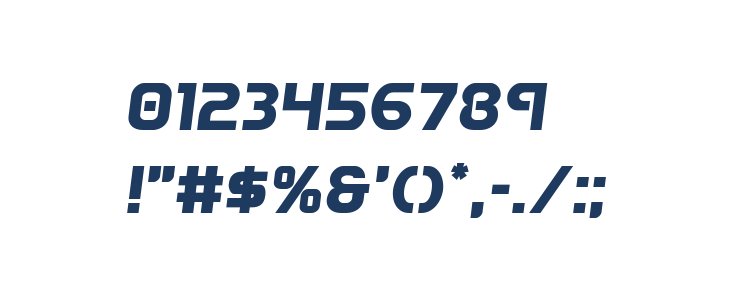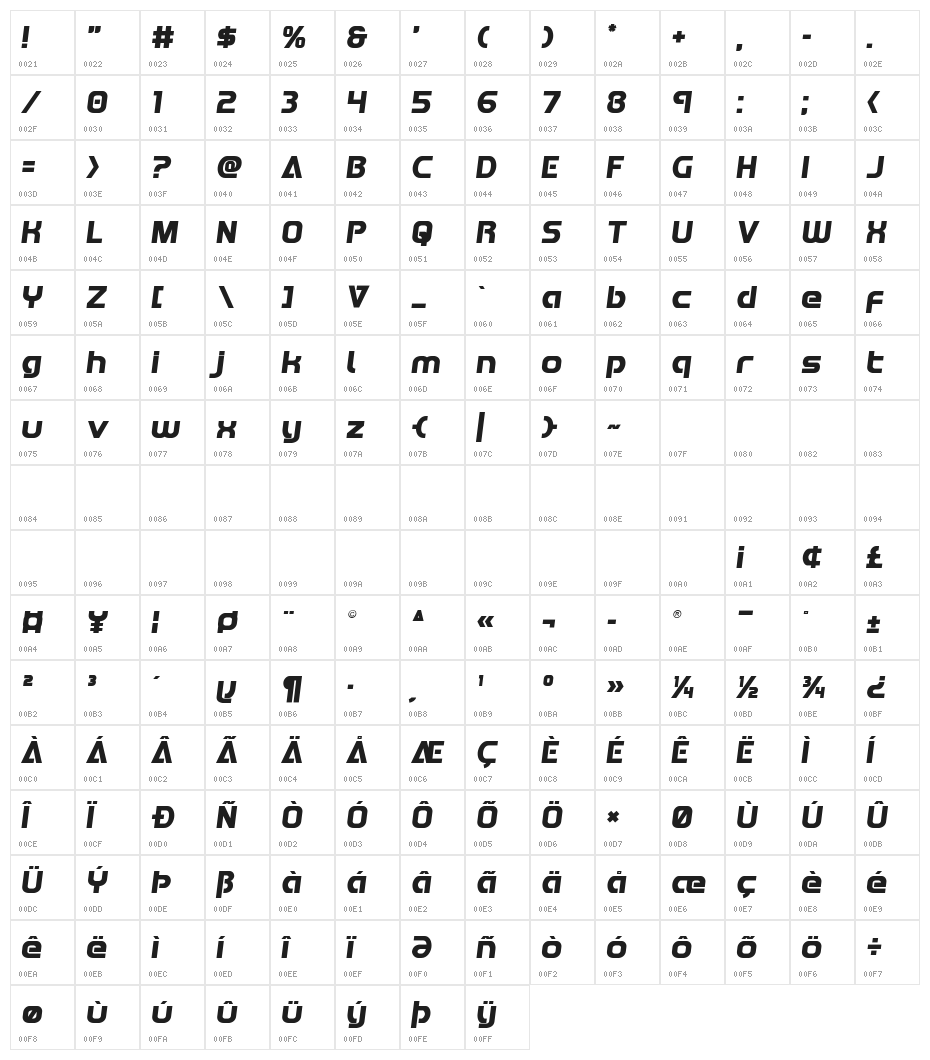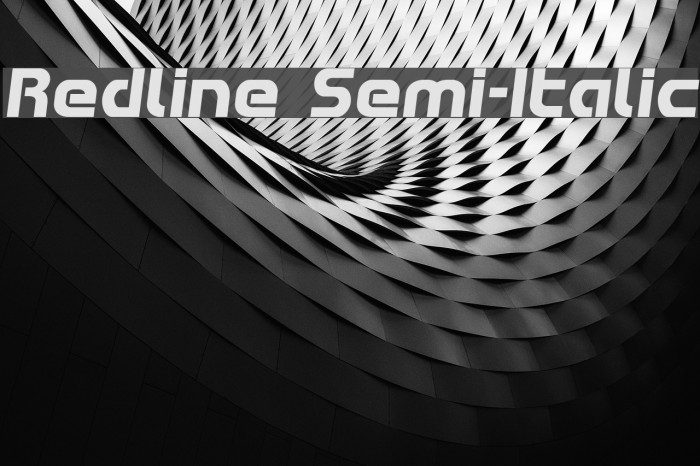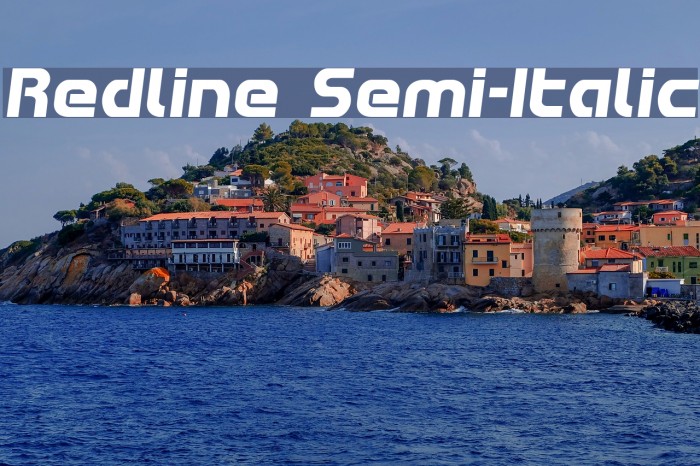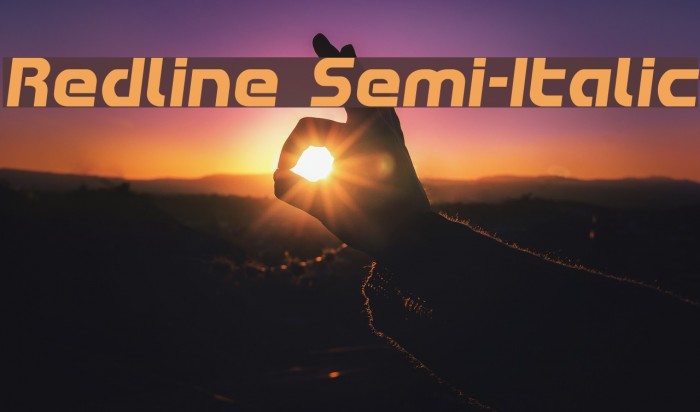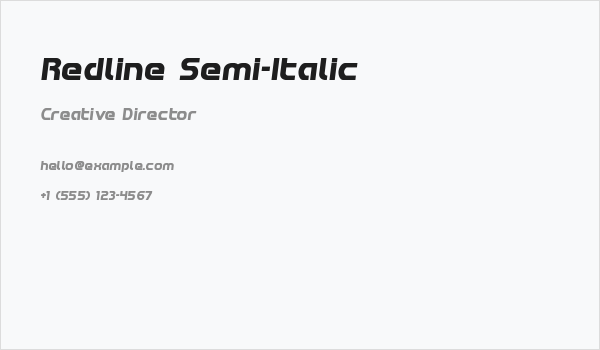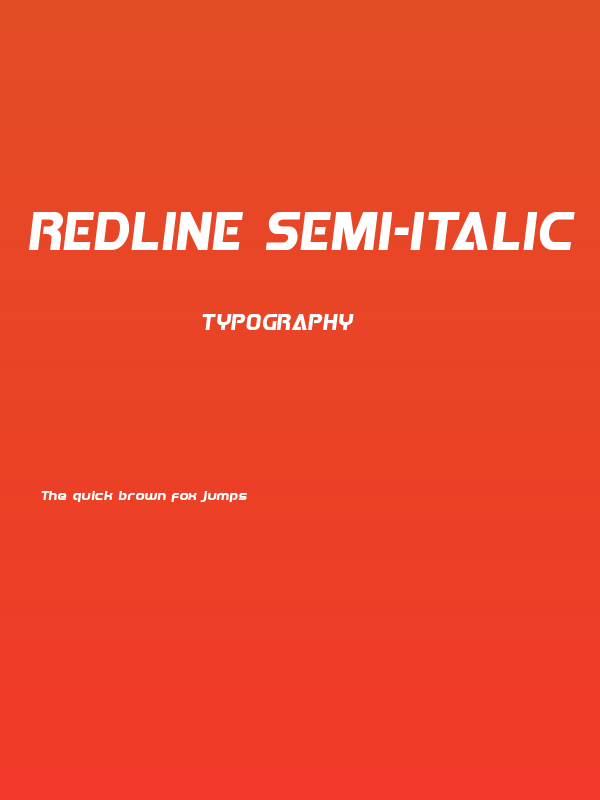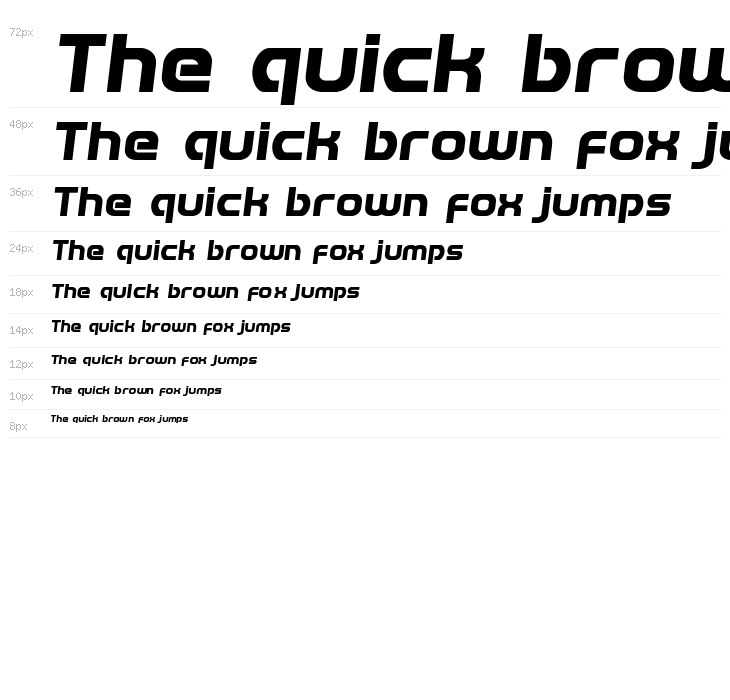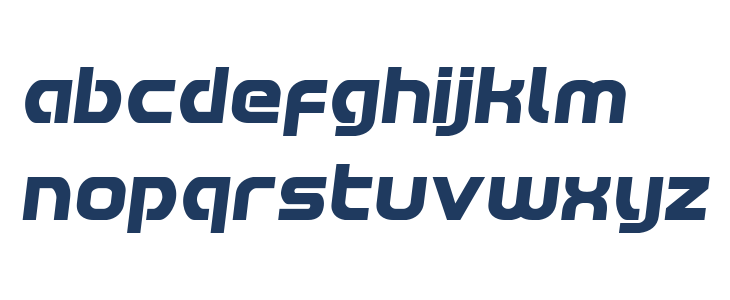
Redline Semi-Italic Font
Redline Semi-Italic Description
This font features a dynamic and modern design with a semi-italic slant, giving it a sense of motion and energy. The characters are bold and slightly condensed, providing a strong presence while maintaining readability. The uppercase letters are angular and geometric, while the lowercase letters have a softer, rounded appearance. The numerals are consistent with the overall style, offering a sleek and contemporary look. Special characters are designed to complement the alphabet, maintaining the font's cohesive aesthetic.
| Use Case | Headlines, Logos, Advertising |
| Proposed Projects | Ideal for sports branding, dynamic advertising campaigns, and modern web design. |